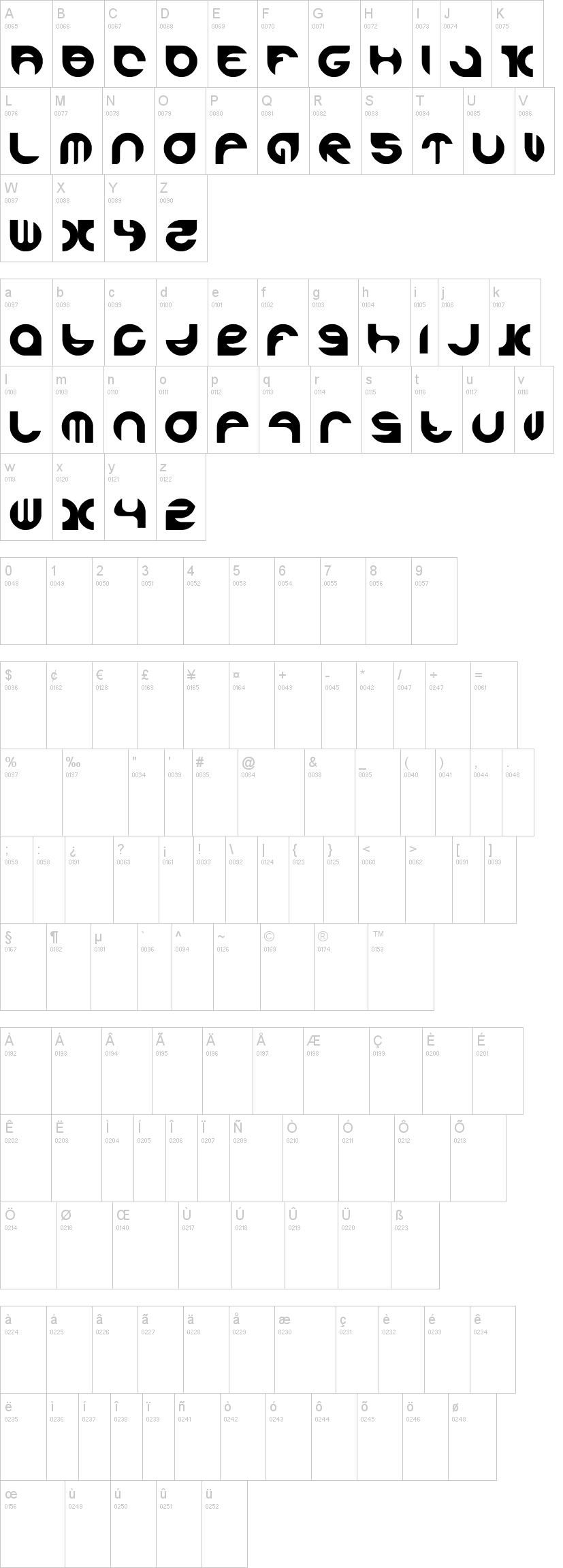
Шрифт Alexandra
Hello again my friend, i dedicate this font for kasumichan, aka alexandra, the shape is inspire by her piplup avatar..but now she not using pinlup anymore as u can see the new cute ones...